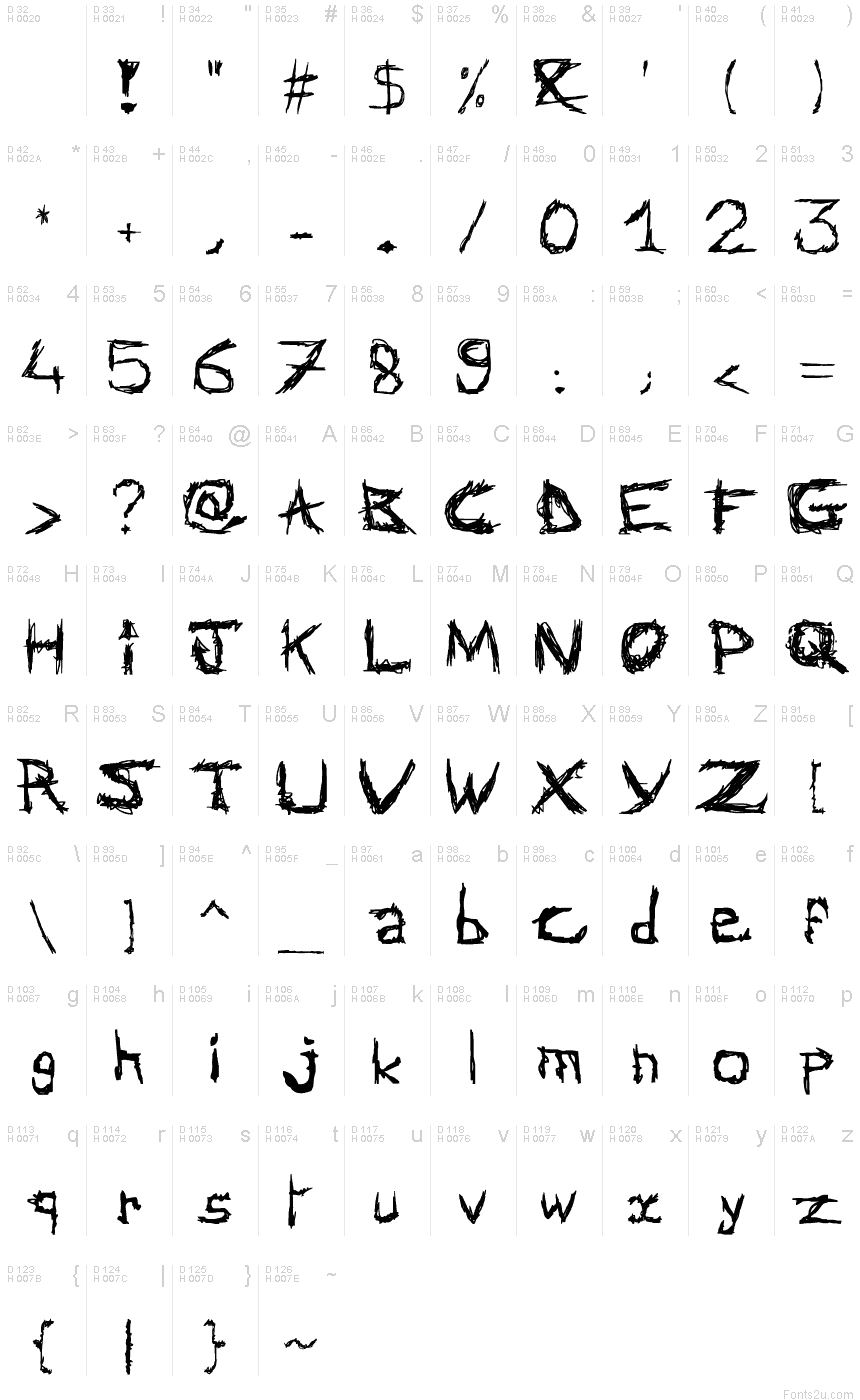
Abstract Classic is a captivating script font that exudes a raw, gritty charm. Its bold, irregular strokes and distressed edges evoke a sense of urban grittiness, making it an ideal choice for projects seeking a bold, edgy aesthetic. The font's dynamic, almost hand-drawn appearance lends an authentic, artisanal feel to designs, from eye-catching headlines to impactful branding. Its versatility shines through, with the potential to elevate a wide range of applications, from editorial layouts and packaging to t-shirt graphics and street art-inspired pieces.
Abstract Classic's distinctive style effortlessly bridges the gap between the polished and the punk, offering designers a powerful tool to make a lasting impression.